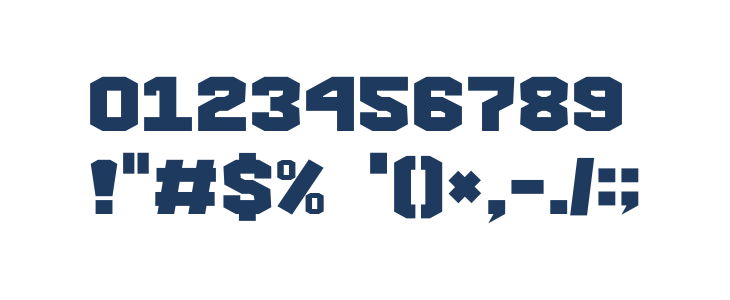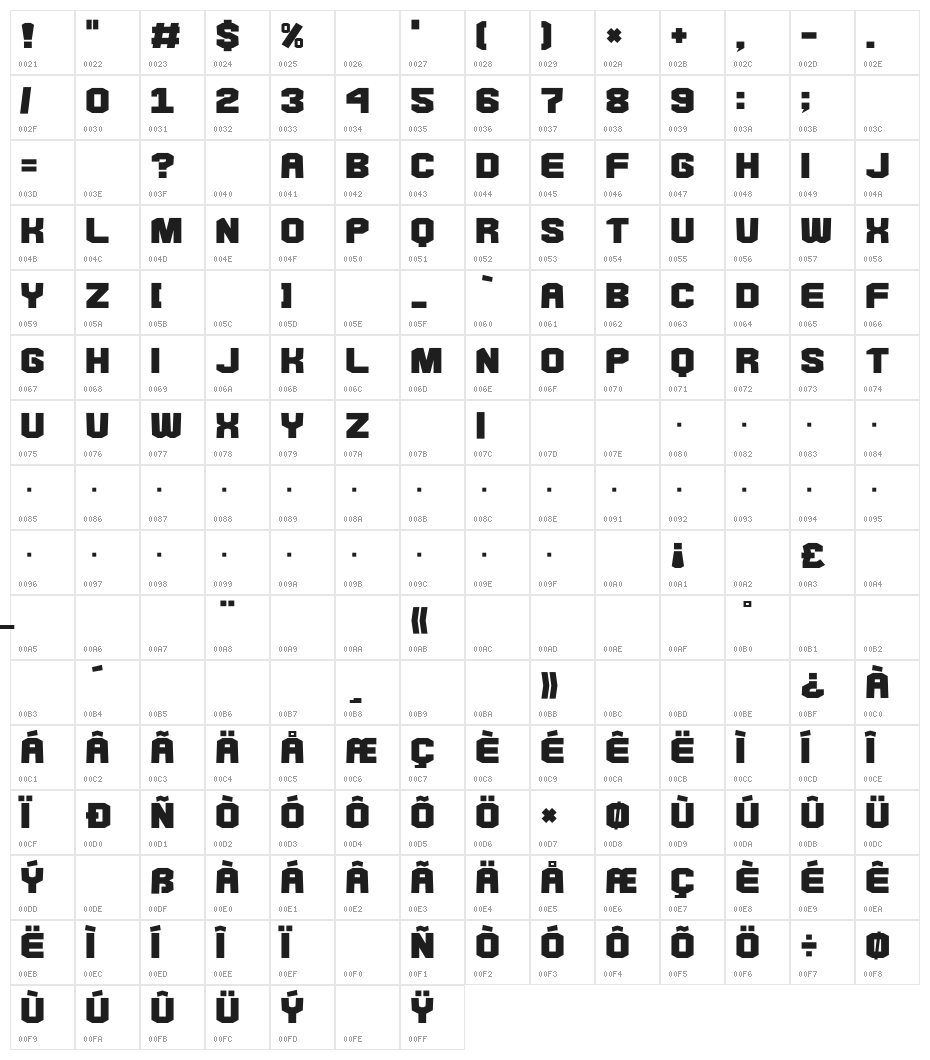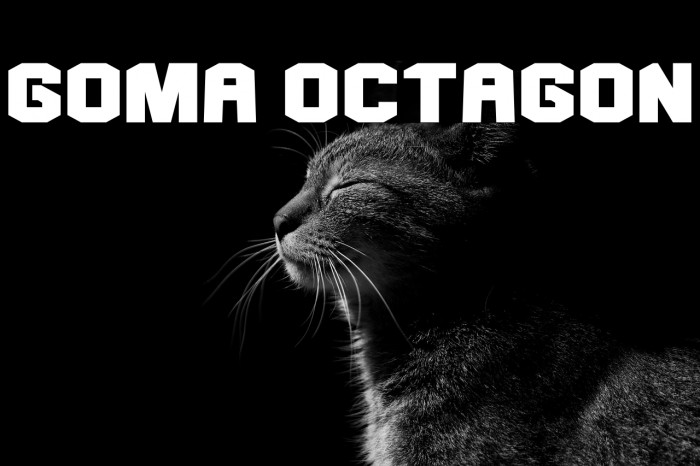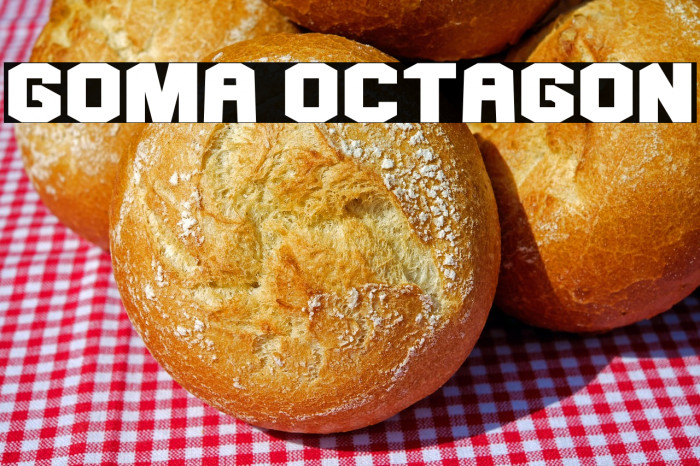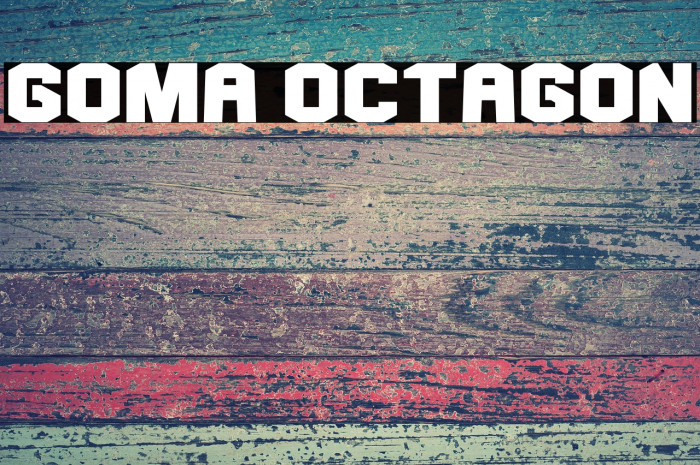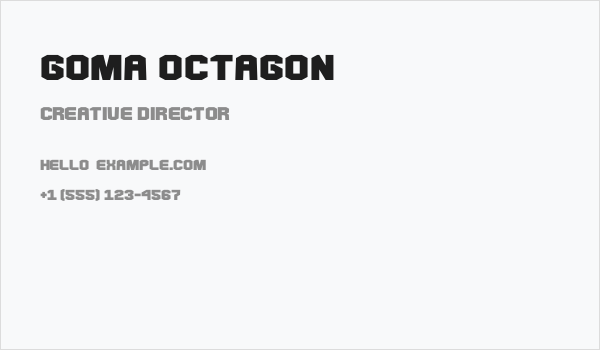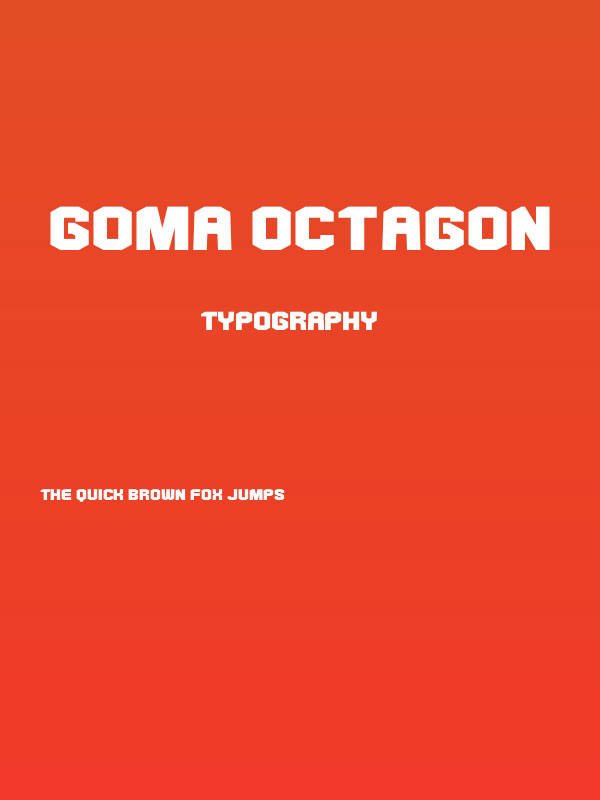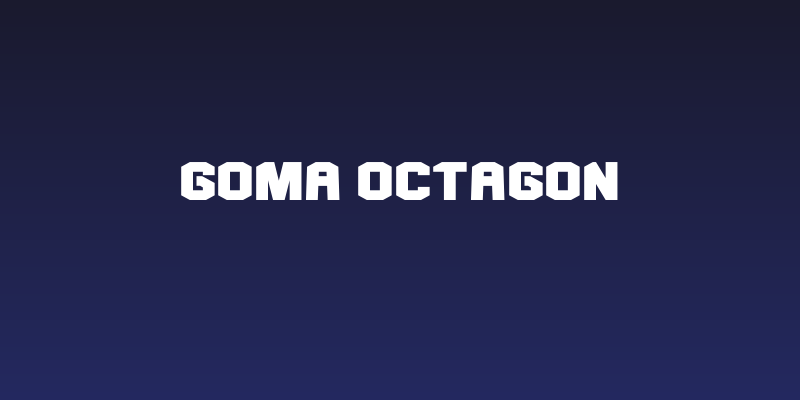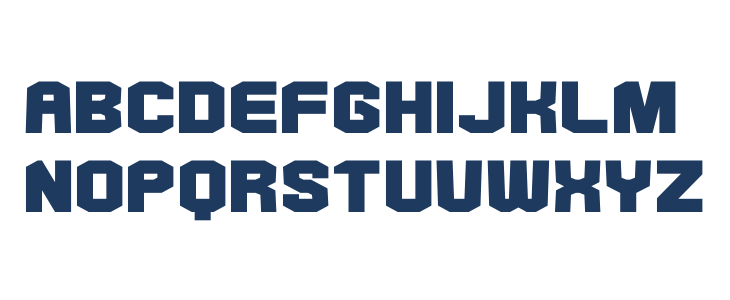
Goma Octagon Font
Goma Octagon Description
This font features a bold, geometric design with octagonal shapes that give it a strong, industrial feel. The characters are constructed with straight lines and sharp angles, creating a sense of precision and modernity. The uppercase and lowercase letters maintain a consistent style, with the lowercase being slightly smaller but equally bold. Numbers and special characters follow the same design principles, ensuring uniformity across all glyphs. The font's unique structure makes it stand out, making it ideal for attention-grabbing designs.
Proposed ProjectsIdeal for logos, posters, headlines, and branding projects that require a strong, modern aesthetic.